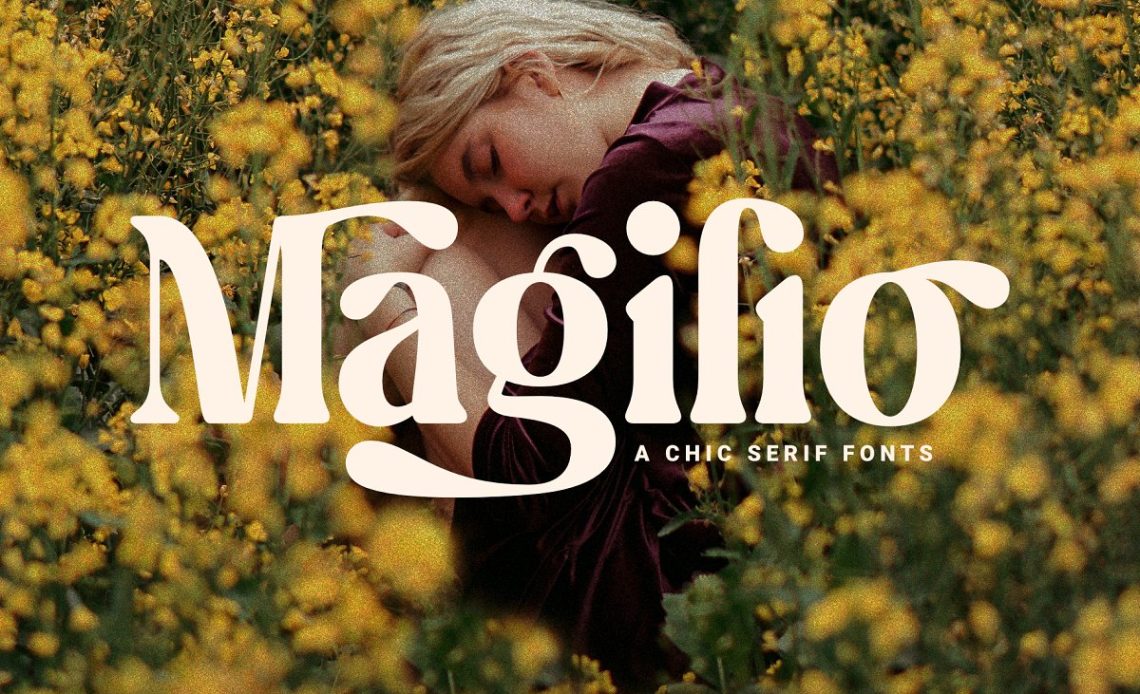
Introducing Magilio - A Chic Serif Fonts, a stunning font collection that will elevate your design projects to new heights of modern elegance and luxury. Created by the talented designer Prio Nurokhim Aji, this font is a must-have for anyone looking to add a touch of sophistication to their designs.
With its beautiful and soft contemporary style, Magilio is perfect for a wide range of design projects. Whether you're working on social media posts, logos, merchandise, book covers, posters, video content thumbnails, quotes, landing pages, wedding invitations, or any other design, this font will make your creations truly stand out.
What sets Magilio apart is its versatility. This font comes with many alternative characters, allowing you to experiment and customize your designs effortlessly. It's like having a whole toolbox of creative possibilities at your fingertips!
But it's not just about looks - Magilio is also highly functional. It features uppercase and lowercase letters, numerals, punctuation, and support for multiple languages. No matter where your audience is, this font will speak their language.